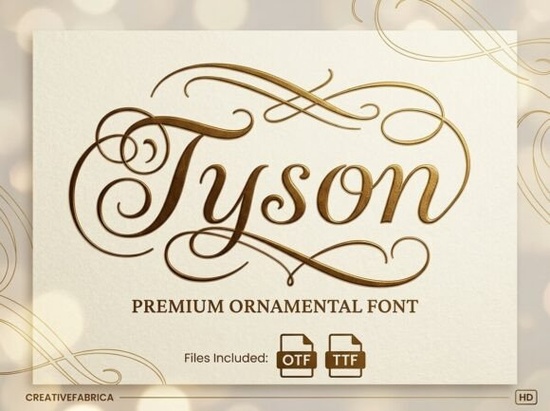
If you're looking for a script font that brings elegance without feeling overly ornate, Tyson Font might be exactly what your next project needs. Designed to echo the graceful flow of a real nib pen, Tyson blends natural rhythm with refined details making it ideal for everything from wedding invitations to luxury product labels. Unlike fonts that rely on heavy embellishment, Tyson’s charm lies in its subtle swashes and consistent hand-lettered feel.
What makes Tyson Font stand out among script fonts?
Many calligraphy-style fonts try to impress with dramatic flourishes, but Tyson focuses on balance. Its letterforms maintain readability while still offering those delicate upstrokes and tapered ends that mimic authentic penmanship. This makes it especially useful when you need sophistication without sacrificing clarity think boutique packaging, editorial headers, or even custom apparel for high-end lifestyle brands.
Compared to other popular options like Bubble Font, which leans playful and rounded, or Lemon Charm, known for its bouncy, cheerful curves, Tyson occupies a more polished niche. It’s not trying to be cute or quirky; it’s aiming for timeless refinement.
Who should use Tyson Font?
This font works best for creators who value subtlety and craftsmanship:
- Wedding stationery designers – Invitations, place cards, and menus benefit from Tyson’s understated elegance.
- Small business owners – Especially those in beauty, fashion, or artisanal goods, where branding needs to feel premium but not flashy.
- Print-on-demand sellers – Use it for quote mugs, framed art, or tote bags targeting customers who appreciate classic aesthetics.
- Hobbyist crafters – If you’re making handmade greeting cards or personalized gifts, Tyson adds a professional touch without requiring advanced design skills.
It’s worth noting that Tyson shines most in short-form text. Long paragraphs can dilute its impact, so reserve it for headlines, logos, or accent phrases rather than body copy.
How does Tyson compare to similar fonts on Creative Fabrica?
When browsing script fonts, you’ll find plenty of options with exaggerated loops or inconsistent spacing. Tyson avoids those pitfalls by maintaining even weight distribution and smooth transitions between letters. For example, while Tyson Font offers optional swash alternates for select characters, they’re designed to integrate seamlessly not overwhelm.
In contrast, fonts like Bubble Font prioritize friendliness over formality, and Lemon Charm leans into whimsy. Tyson sits comfortably in the middle: expressive enough to feel human, restrained enough to feel intentional.
Tips for using Tyson effectively
To get the most out of this font, keep these practical pointers in mind:
- Pair it wisely. Tyson pairs beautifully with clean, neutral sans-serifs like Montserrat or Lato. Avoid combining it with other scripts that can create visual clutter.
- Use OpenType features if available. Many versions include stylistic alternates and ligatures that enhance authenticity. Check your design software’s glyph panel to access them.
- Mind your spacing. Slight tracking adjustments (letter-spacing) can prevent crowding, especially in uppercase or mixed-case settings.
- Test at different sizes. While Tyson looks stunning large, some fine details may blur at very small print sizes always proof before finalizing.
And remember: less is often more. One well-placed line in Tyson can say more than three lines of competing decorative fonts.
Ready to try it?
If your project calls for quiet confidence rather than loud flair, Tyson Font delivers. You can explore it alongside complementary styles like its dedicated collection page, where you’ll also find mockups and usage examples to spark ideas.